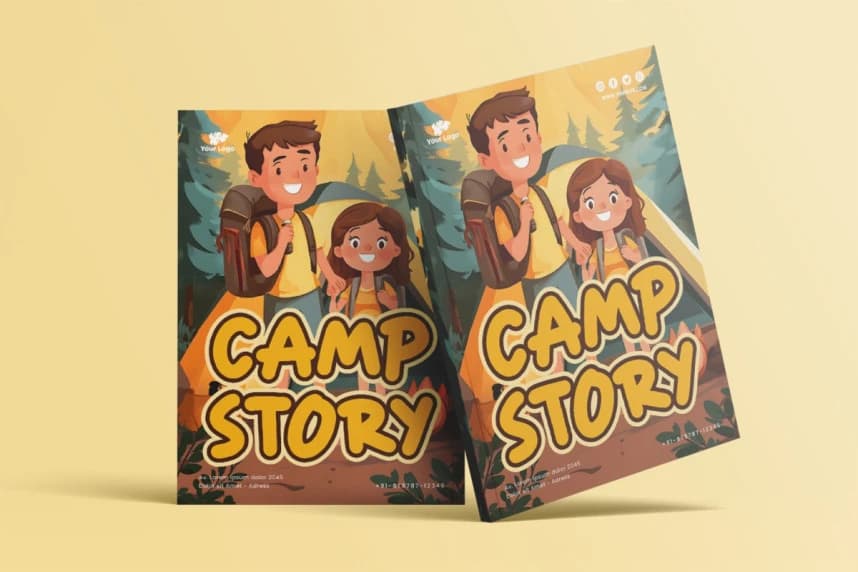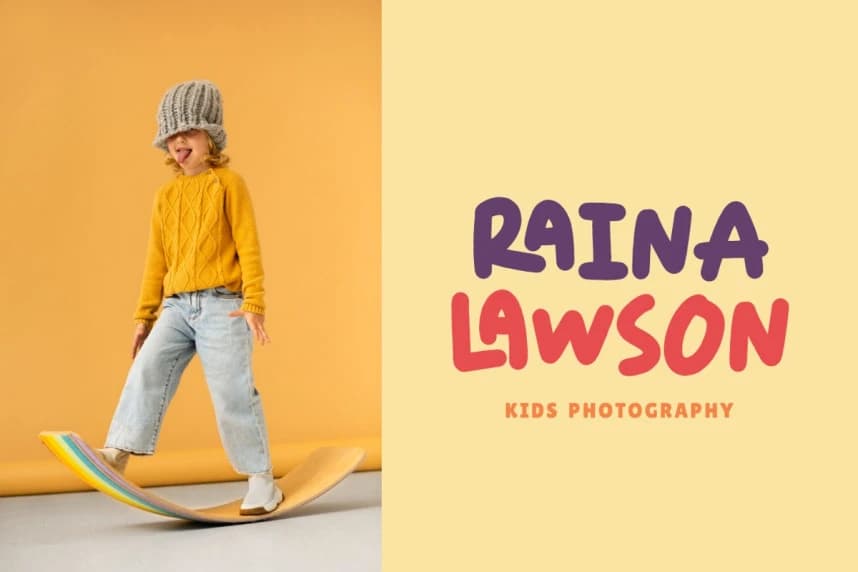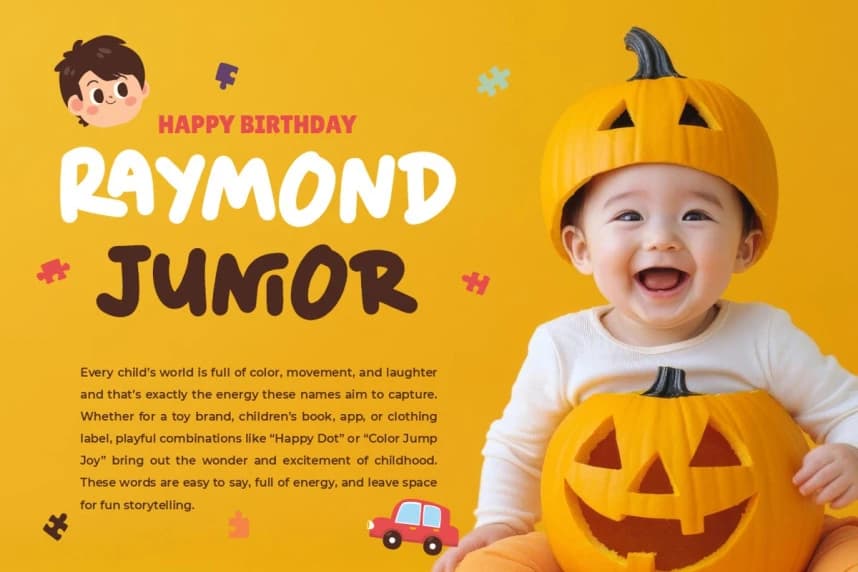
Nirakolu Playful Font
Nirakolu Playful Font is a joyful typeface that captures the carefree spirit of childhood and playful doodling. The characters are bold and rounded with slightly uneven heights, giving each letter a lively handmade touch.